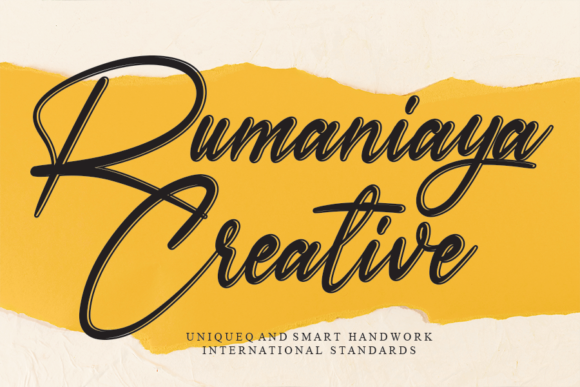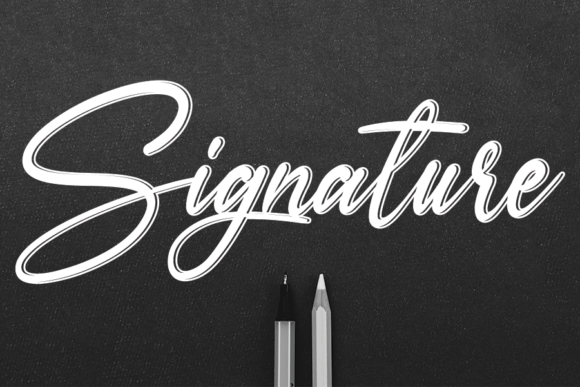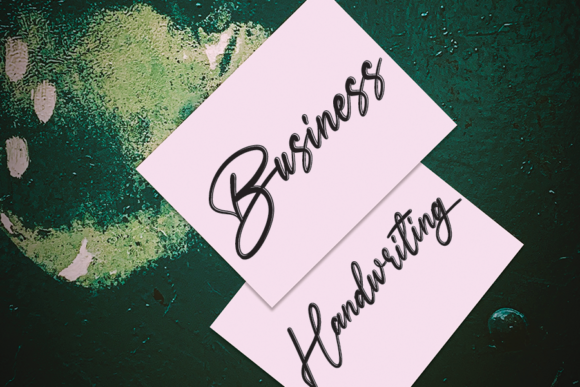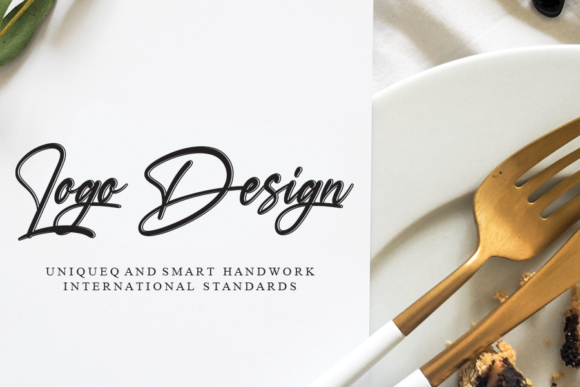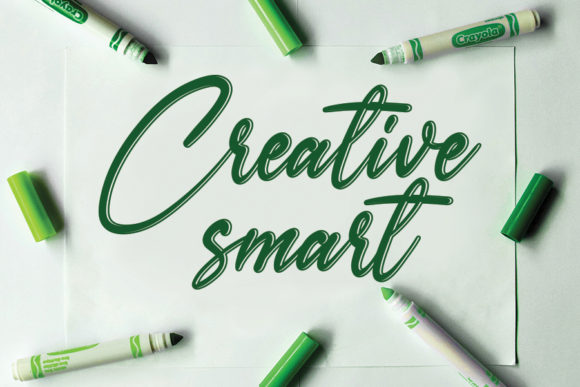
Rumaniaya
About Rumaniaya Font
Rumaniaya is a beautiful handwritten font. This stunning typeface is a stylish homage to classic calligraphy. Fall in love with its authentic feel and use it to create gorgeous wedding invitations, beautiful stationary art, eye-catching social media posts, and cute greeting cards.